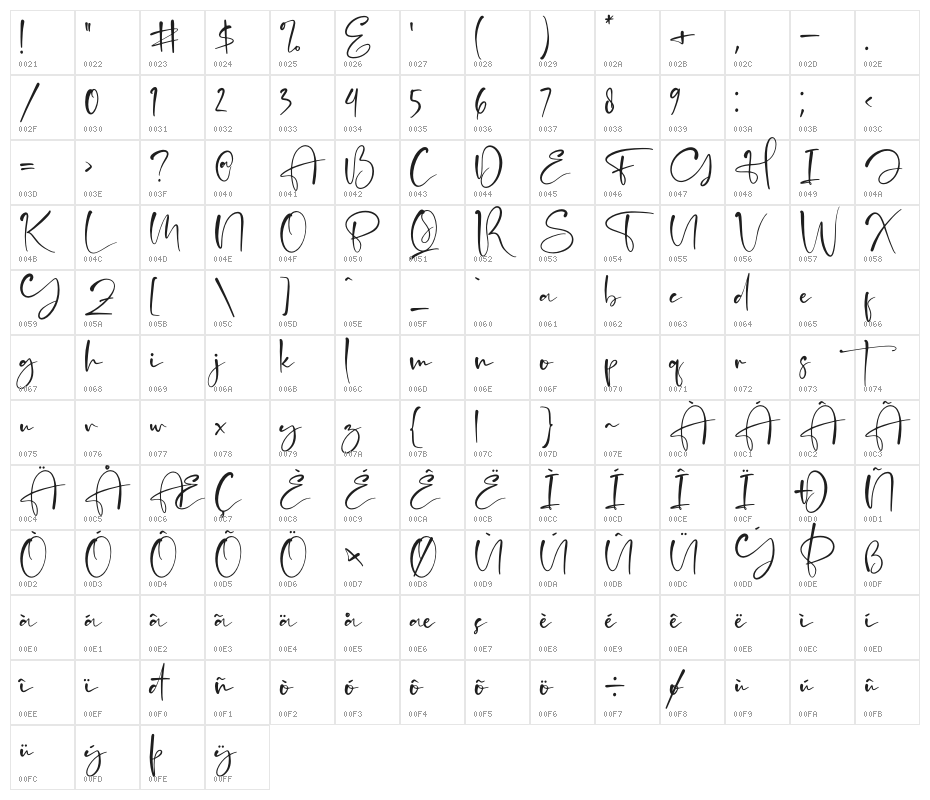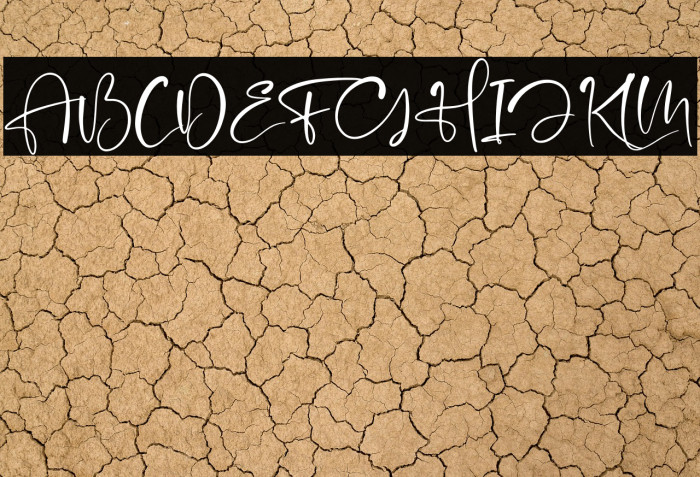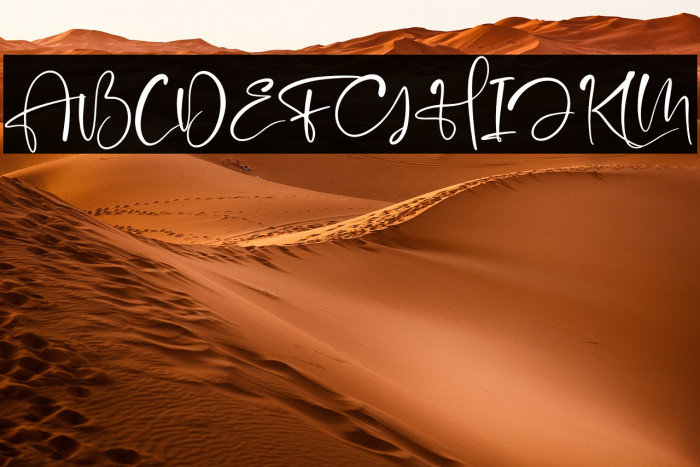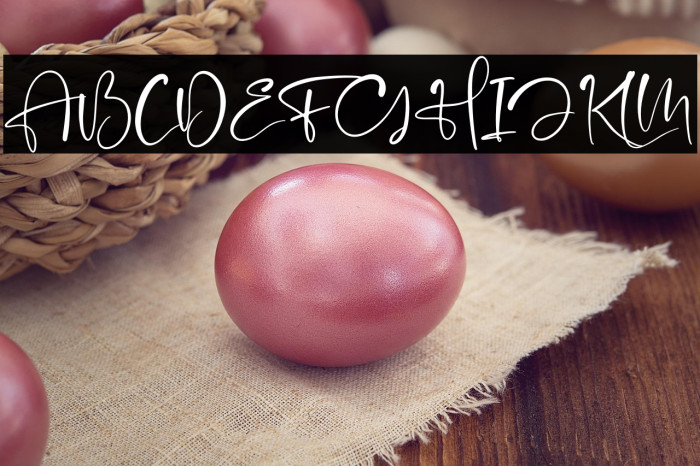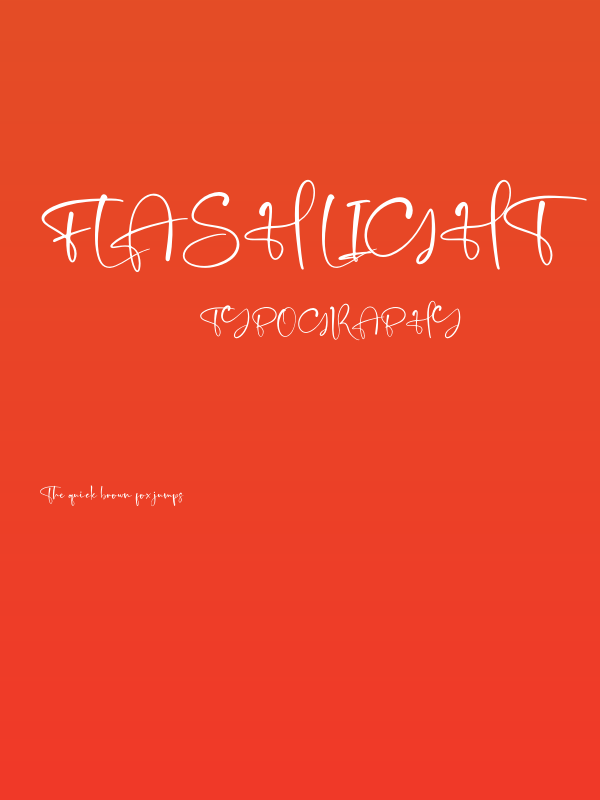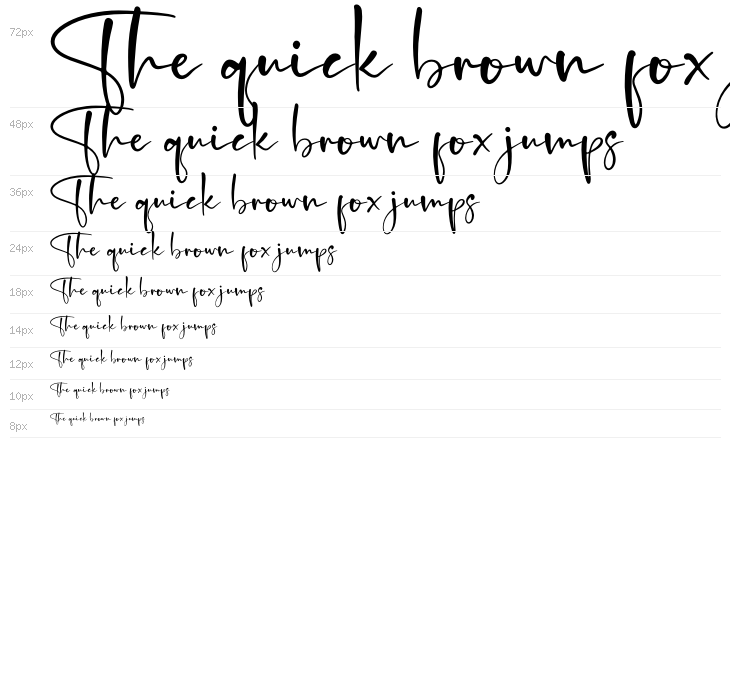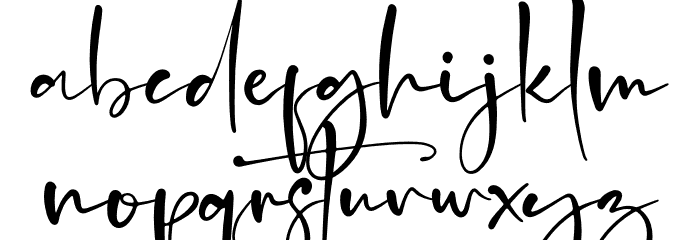
Flash Light Font
Flash Light Description
This font exudes a lively and expressive character with its flowing, cursive style. The letters are interconnected with elegant loops and swirls, giving it a handwritten feel. The uppercase letters are bold and dynamic, while the lowercase letters maintain a consistent fluidity. Numbers and special characters are designed with the same playful yet sophisticated touch. The overall appearance is both artistic and modern, making it suitable for creative projects that require a personal touch.
| Proposed Projects | Ideal for wedding invitations, greeting cards, personal branding, and artistic projects. |